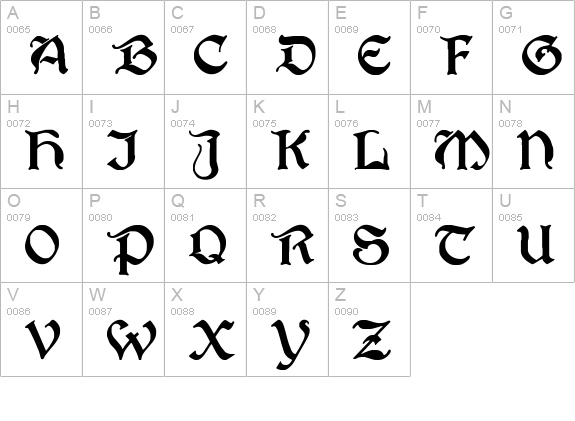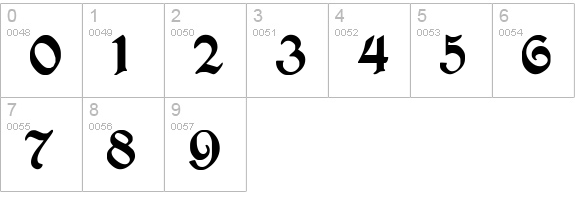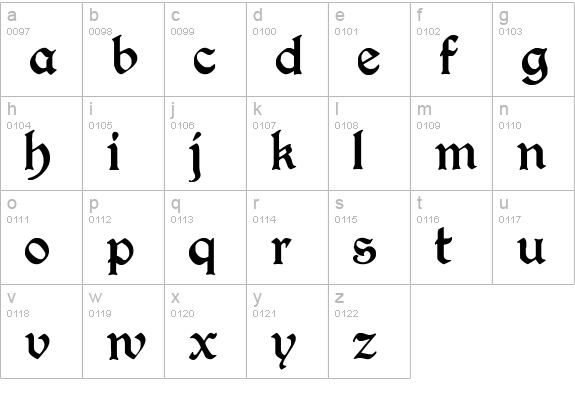
PerryGothic Regular Font Details
PerryGothic Regular is the standard, neutral variant in the PerryGothic typeface family \xE2\x80\x94 well suited to general body text, paragraphs, and standard typographic work.
PerryGothic Regular font is a striking and sophisticated typeface that exudes an air of mystery and elegance. Its sharp, angular lines and bold, strong presence make it perfect for creating eye-catching headlines, titles, and logos. With its unique design, PerryGothic Regular font is sure to make a lasting impression in any project, whether it's for print or digital media. Its versatility allows it to be used in a variety of design styles, from gothic and vintage to modern and minimalistic. One of the best features of PerryGothic Regular font is that it is available for free download at FontsMarket.com. This means that you can easily access and use this stunning font without any cost or restrictions. Whether you are a professional designer or a hobbyist, this free font is a valuable addition to your font library. The clarity and legibility of PerryGothic Regular font make it ideal for a wide range of applications, including posters, book covers, websites, and branding materials. Its timeless appeal and attention-grabbing aesthetic will captivate your audience and elevate your designs to new heights. So why wait? Don't miss the opportunity to enhance your creative projects with the striking and captivating PerryGothic Regular font. Download it for free at FontsMarket.com and unleash your creativity today.